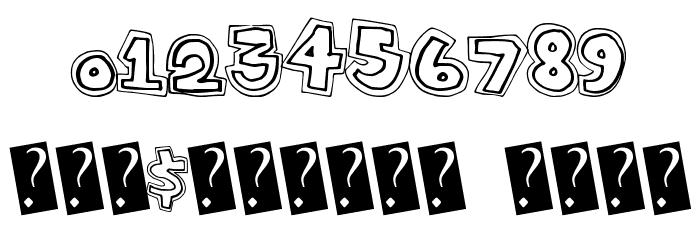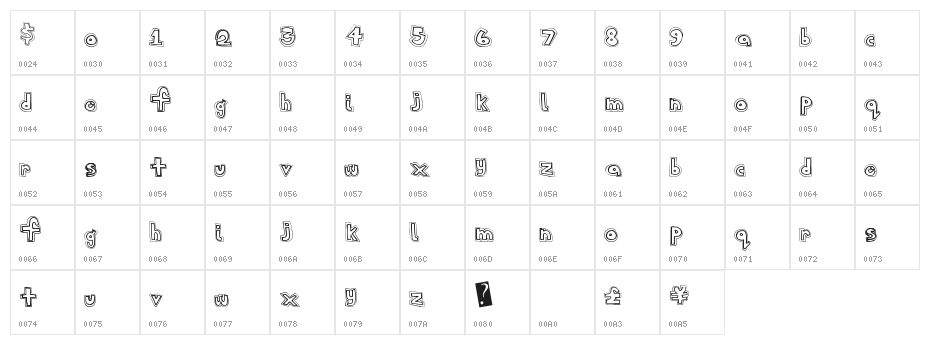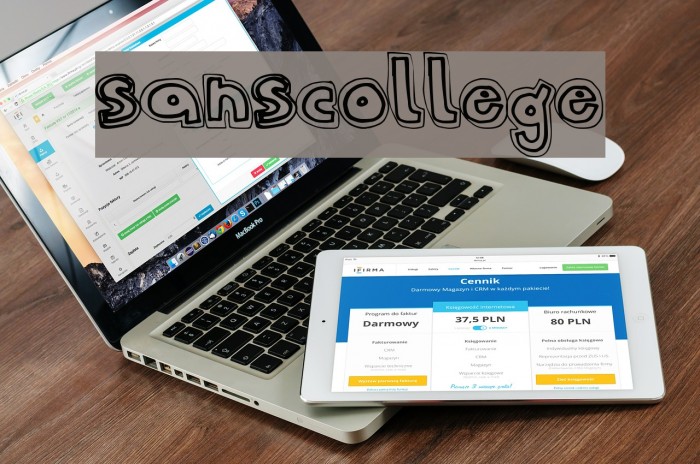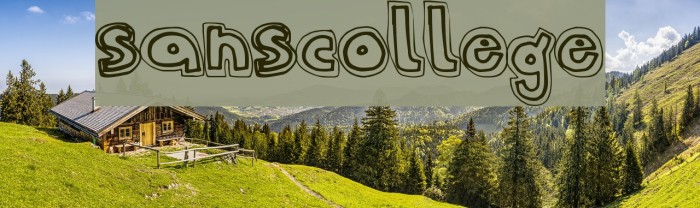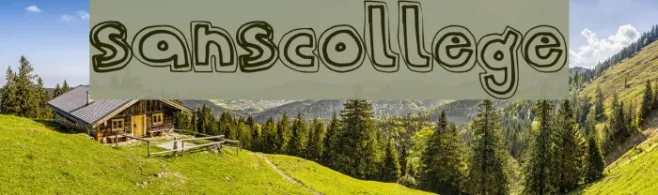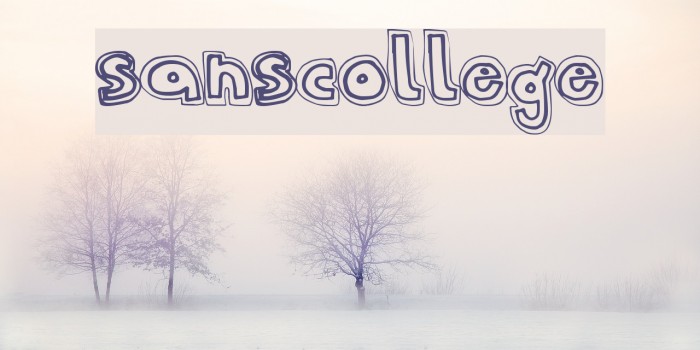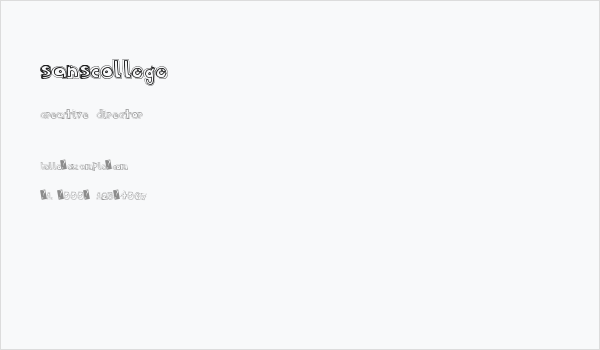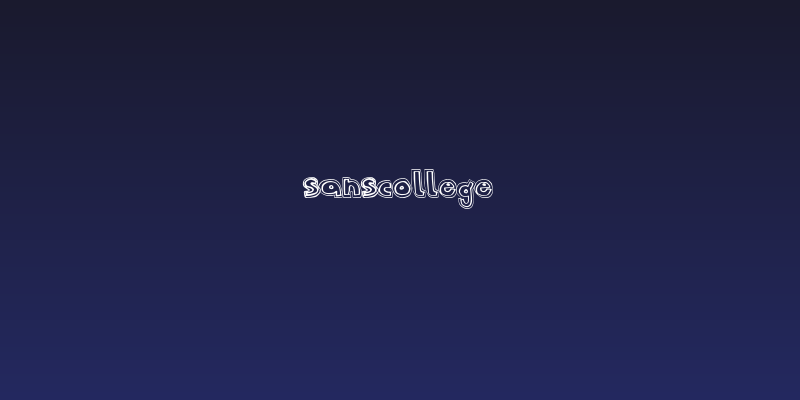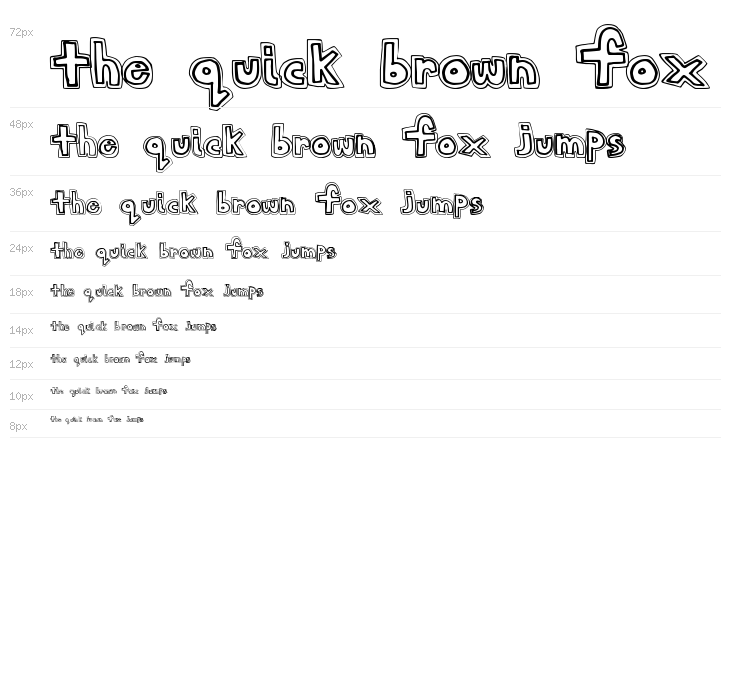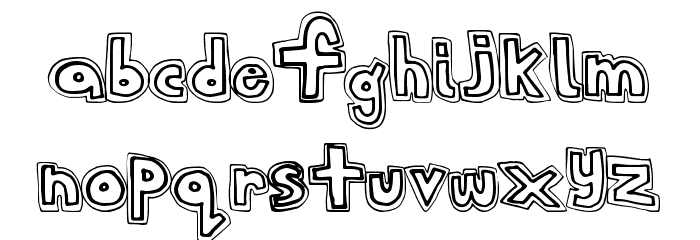
SansCollege Font
SansCollege Description
This font features a playful and bold outline style, characterized by its thick, rounded edges and a hollow interior. The letters are slightly irregular, giving them a hand-drawn, whimsical appearance. The uppercase and lowercase letters maintain a consistent style, with a slight tilt and exaggerated curves that add to the font's charm. The numbers and special characters follow the same design principles, ensuring a cohesive look across all elements. This font's unique style makes it stand out, making it ideal for projects that require a fun and engaging visual element.
Overall StylePlayful, Whimsical
Proposed ProjectsIdeal for children's books, playful branding, posters, and creative invitations.